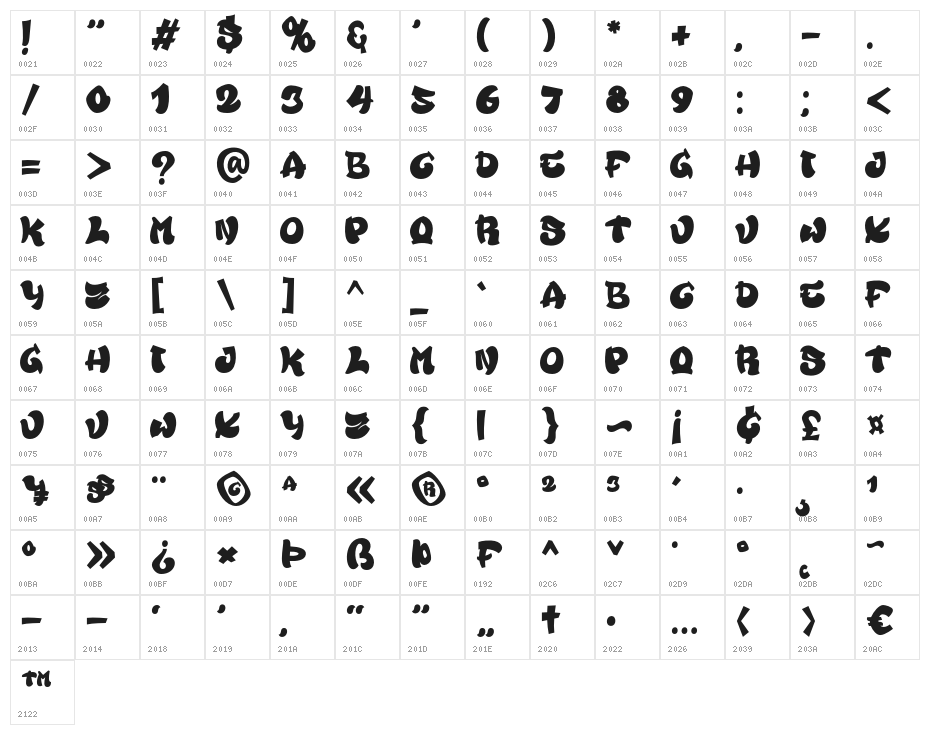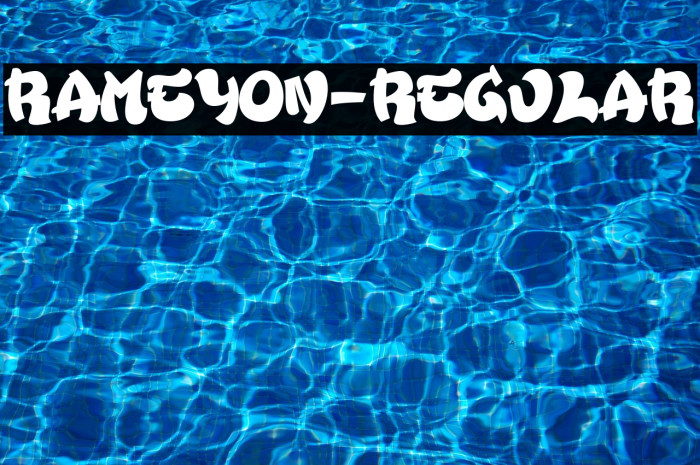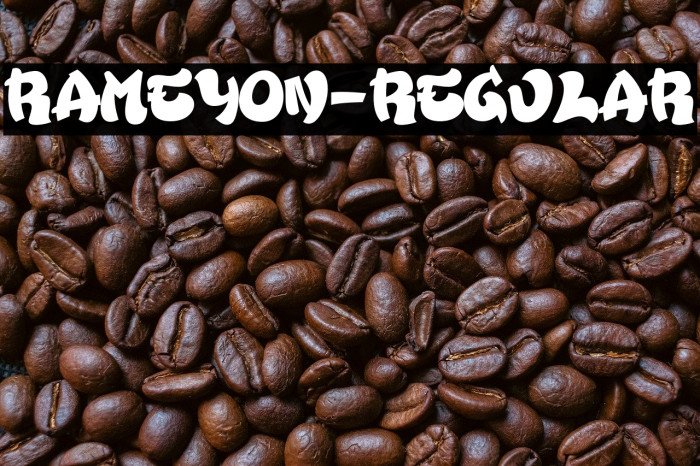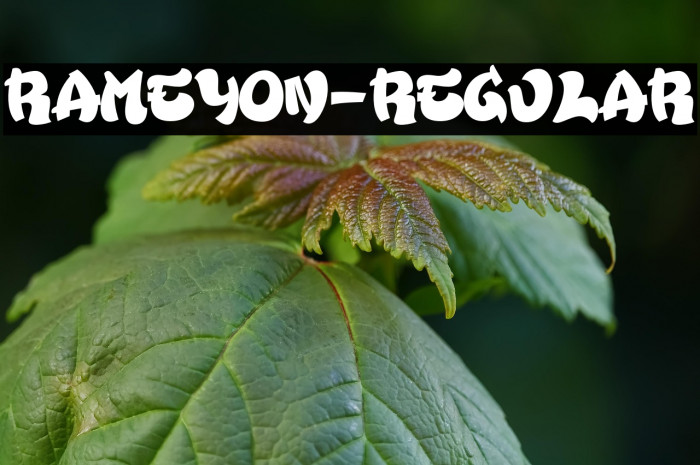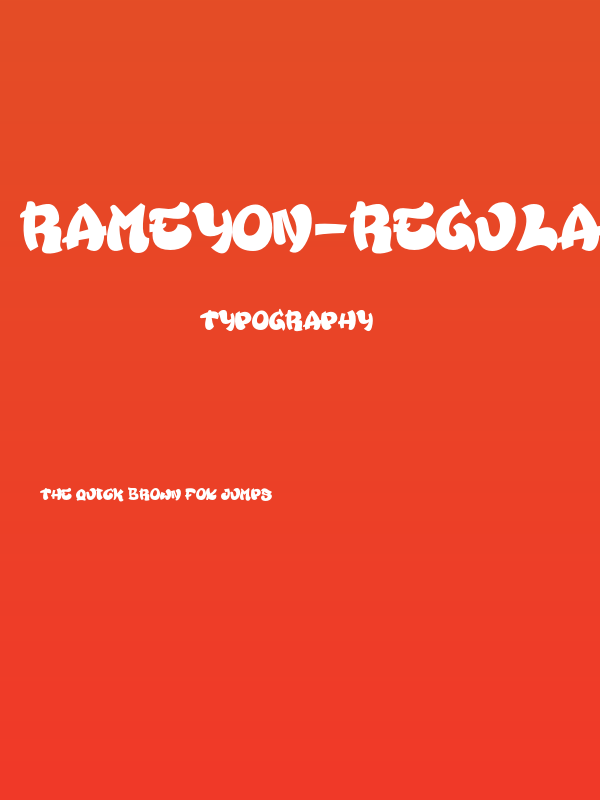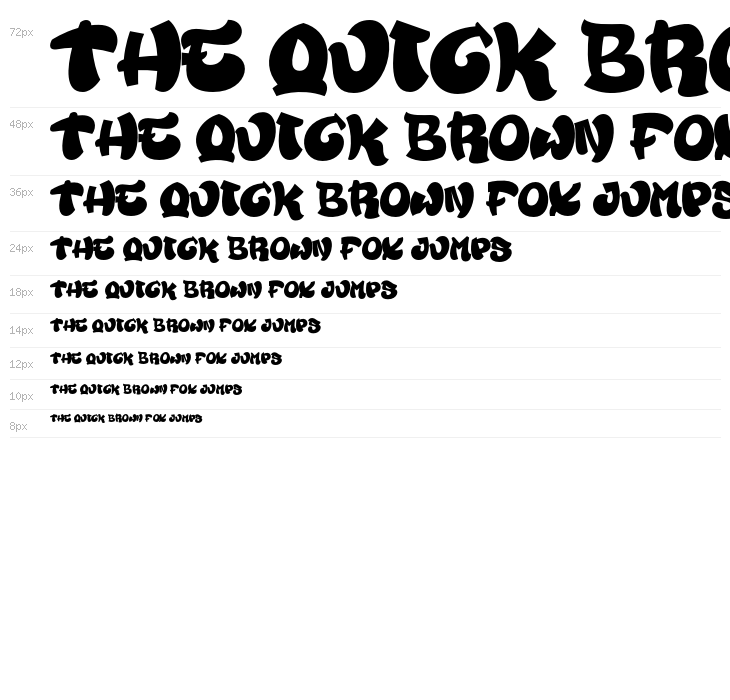
Rameyon-Regular Font
Rameyon-Regular Description
This font exhibits a bold and playful style, characterized by its thick, rounded strokes and whimsical curves. The letters have a dynamic, almost cartoonish appearance, with exaggerated serifs and a sense of movement. The uppercase and lowercase letters maintain a consistent style, ensuring readability while adding a touch of fun. The numbers and special characters follow the same design principles, making them cohesive with the alphabet. This font's unique personality makes it stand out, perfect for projects that require a lively and engaging typeface.
| Overall Style | Playful, Cartoonish |
| Proposed Projects | Ideal for children's books, playful branding, posters, and creative advertisements. |